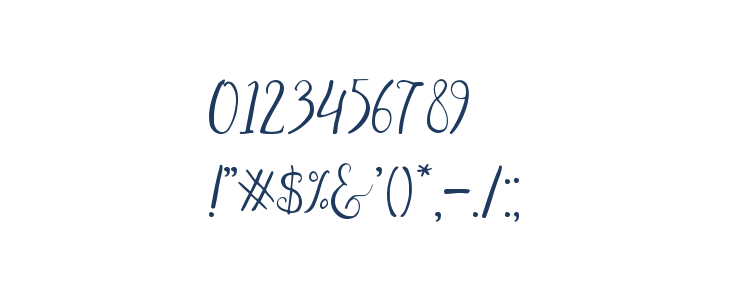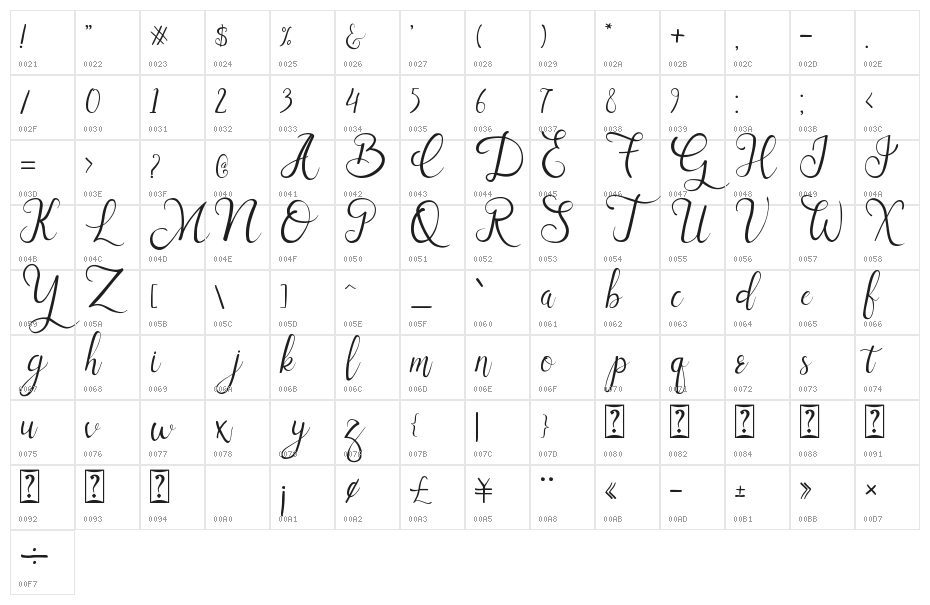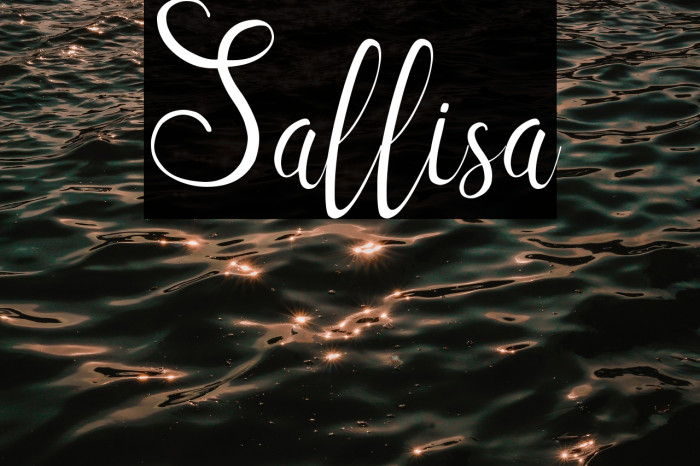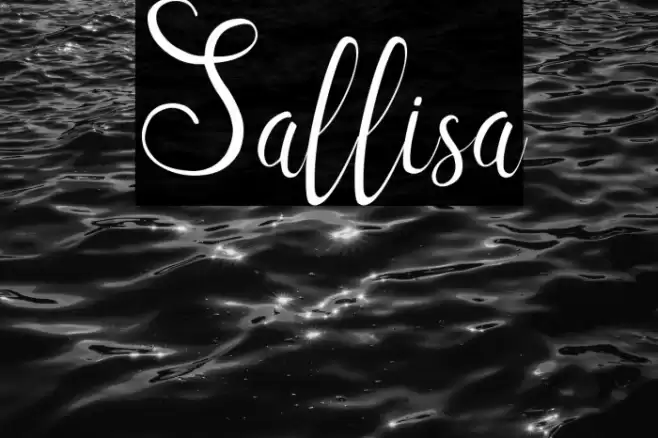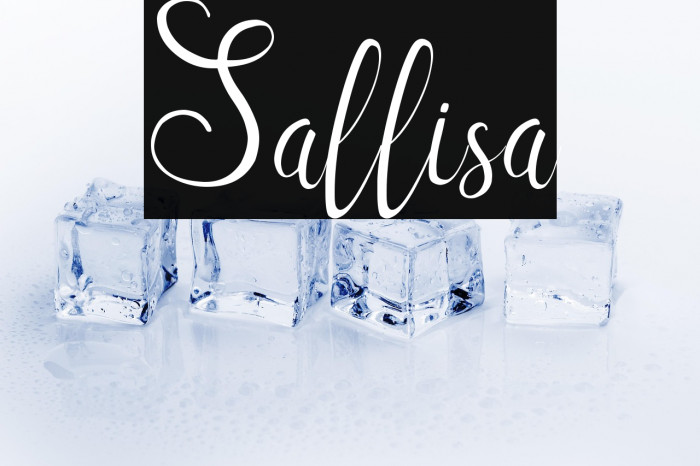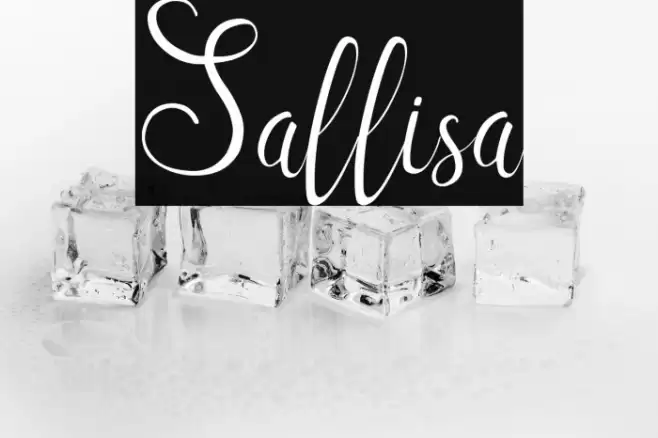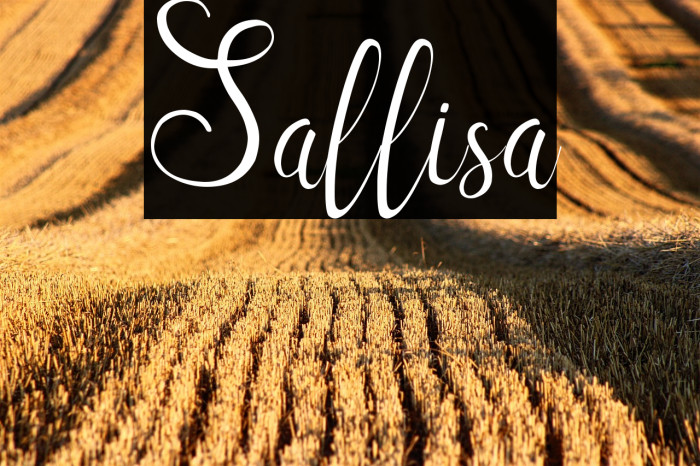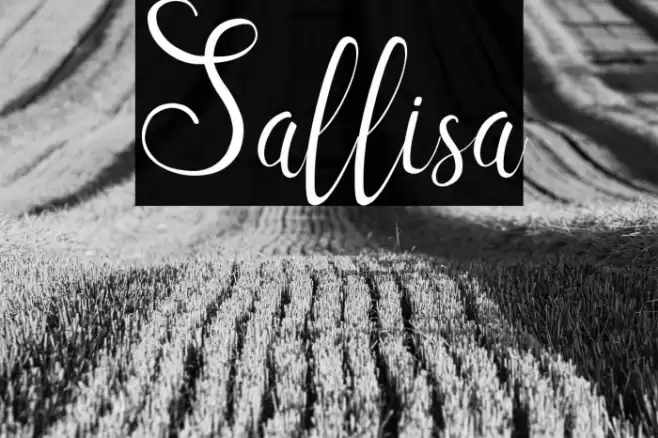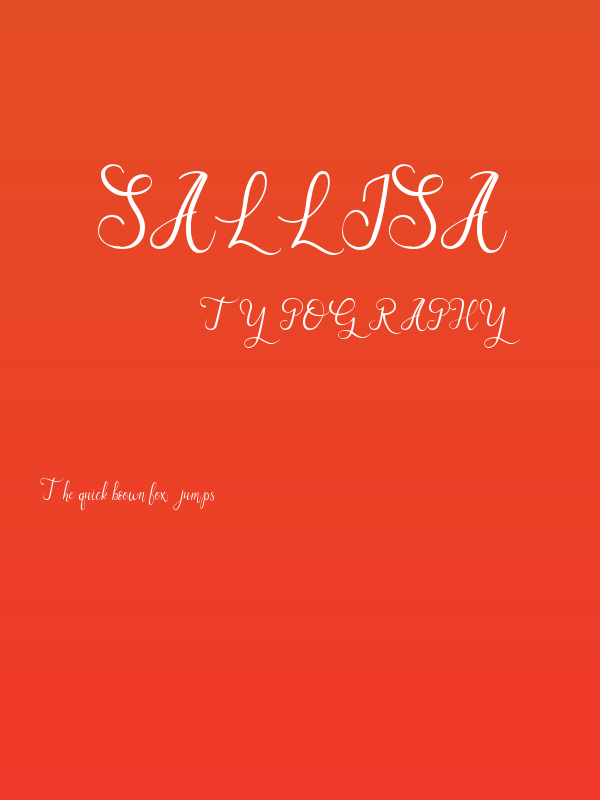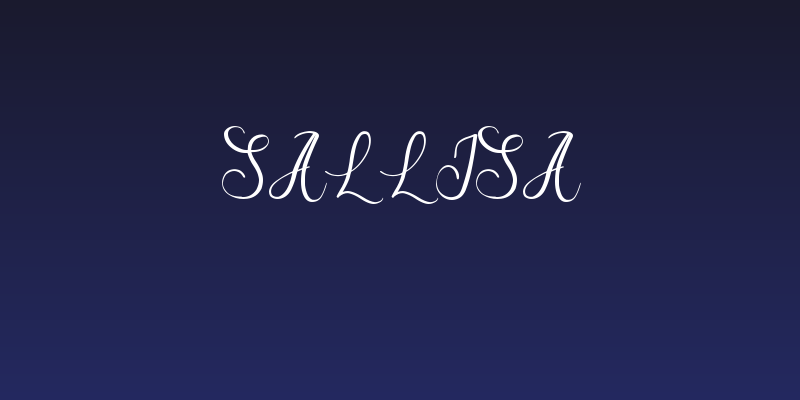
Sallisa Font
Sallisa Description
This elegant script font features flowing, interconnected letters that exude a sense of sophistication and grace. The uppercase letters are ornate, with sweeping curves and flourishes that add a decorative touch. The lowercase letters maintain a consistent style, with smooth transitions and a slightly slanted orientation that enhances readability. The numerals are designed to match the overall aesthetic, with a balanced mix of curves and straight lines. Special characters are thoughtfully integrated, ensuring they complement the script's fluidity. This font is ideal for projects that require a touch of elegance and refinement.